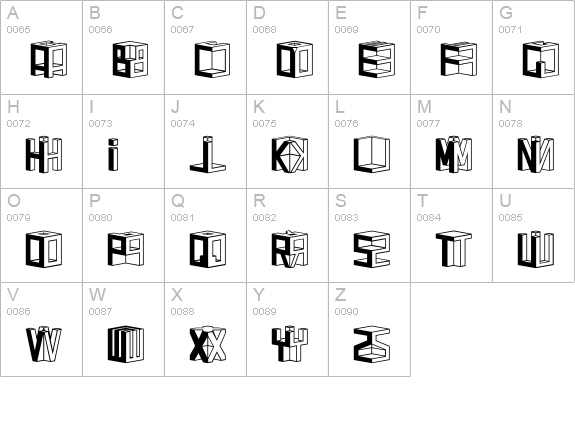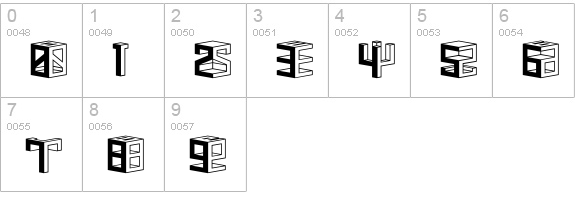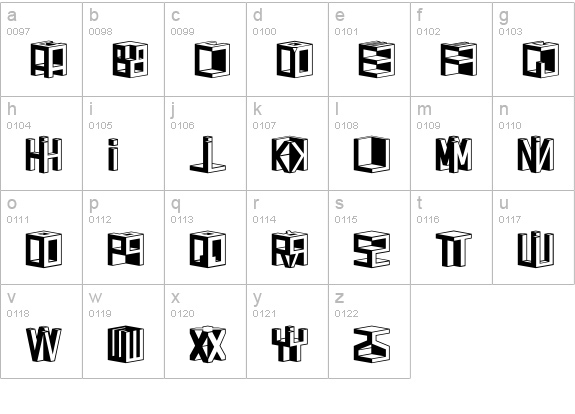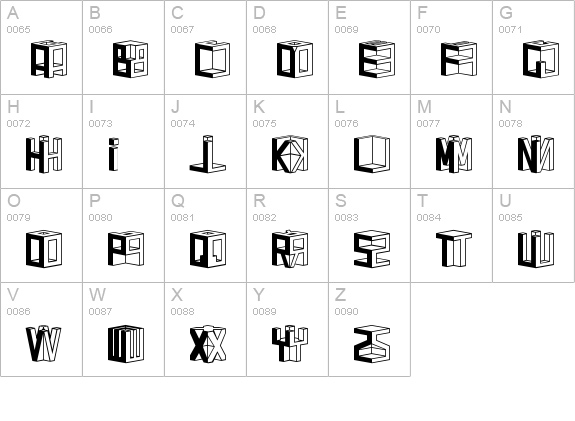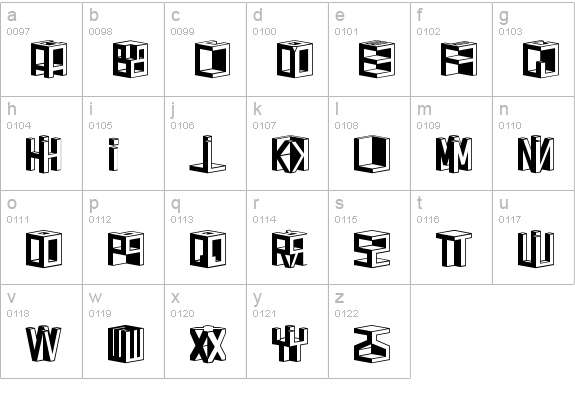
D3 Cubism Font Details
Introducing D3 Cubism, a free font that combines the abstract beauty of cubist art with the clean lines of modern typography. This unique typeface is a masterpiece of design, capturing the essence of geometric shapes and transforming them into a visually stunning alphabet. D3 Cubism is not your typical font - it's a work of art in itself. Each letter is meticulously crafted with intricate details, creating a three-dimensional effect that adds depth and dimension to any project. Whether you're designing a logo, poster, or website, this font will make your work stand out from the crowd. What sets D3 Cubism apart is not only its stunning visual appeal but also its versatility. With four different styles to choose from - regular, bold, italic, and bold italic - you can find the perfect variation to suit your artistic vision. Each style has been carefully designed to maintain the integrity of the cubist aesthetic while offering flexibility for various design applications. But the best part? D3 Cubism is freely available to download at FontsMarket.com. Yes, you read that right - this extraordinary font can be yours without spending a dime. Now, you can unleash your creativity and incorporate the captivating allure of D3 Cubism into your projects without any limitations. Whether you're a professional designer or a passionate hobbyist, D3 Cubism is the perfect addition to your font collection. With its bold and innovative approach to typography, this font will inspire you to push the boundaries of design and create visually stunning masterpieces. So don't miss out on this opportunity - visit FontsMarket.com today and download D3 Cubism for free. Elevate your designs to new heights with the captivating charm of this extraordinary font.